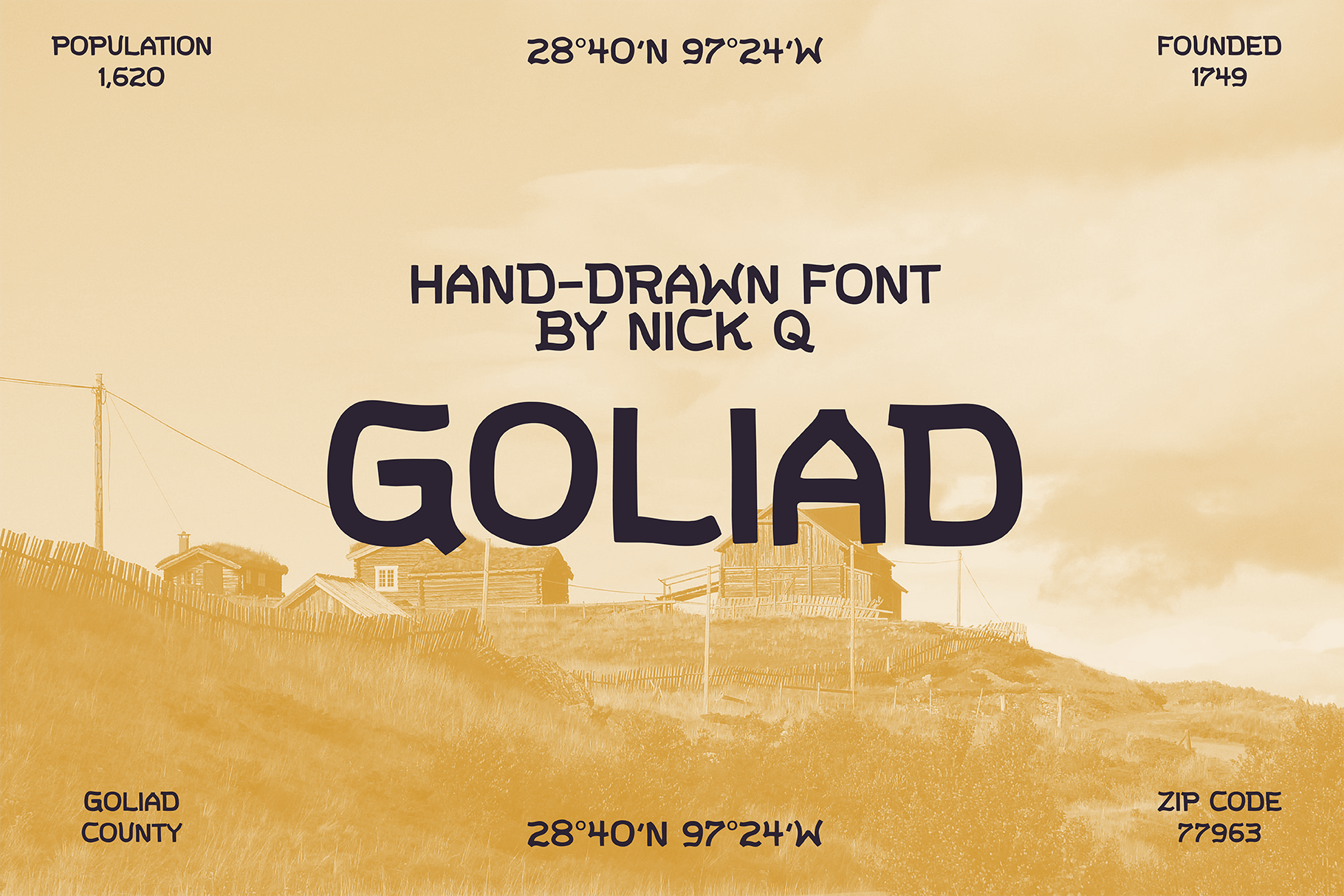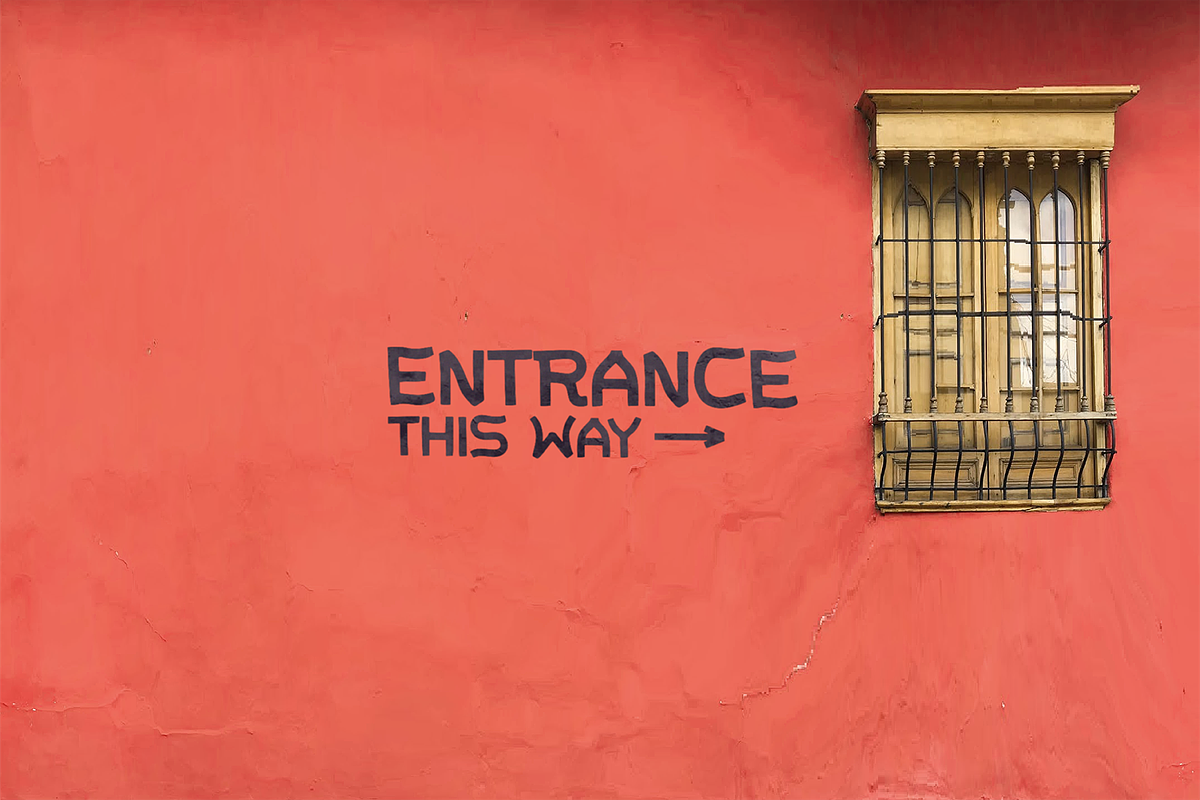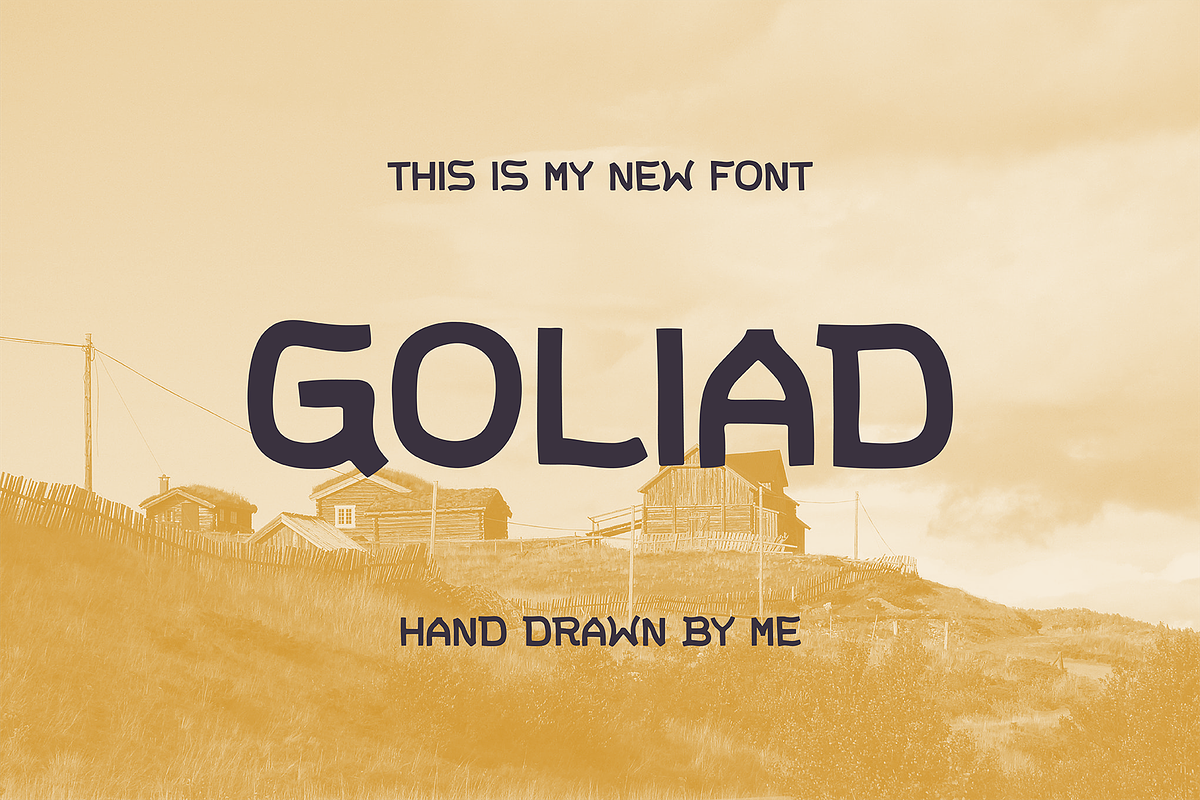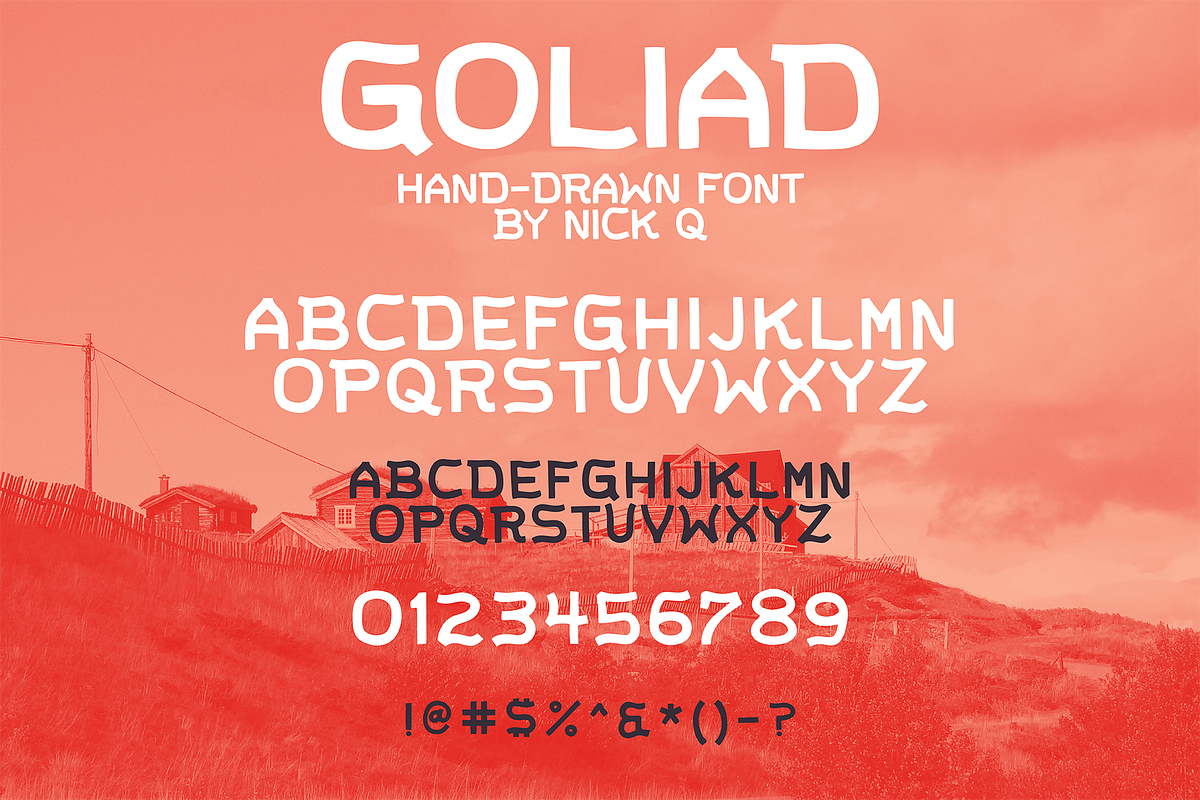
Goliad Hand Drawn Font
My newest font is inspired by small towns in Texas. I always love driving through the towns with buildings and water towers that are old and the hand painted signs are naturally faded away. The characters include the same height and case for uppercase and lowercase, numbers and some symbols.